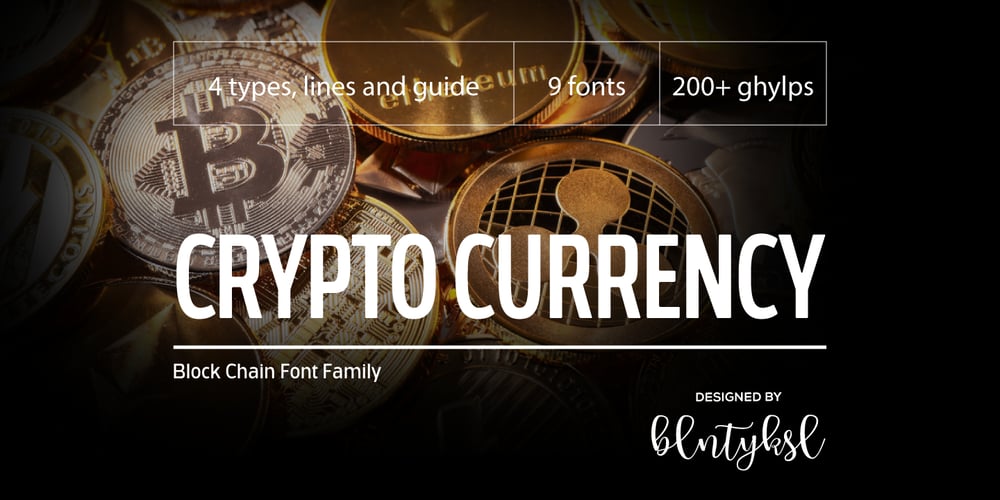
Cryptocurrency
Cryptocurrency font
Cryptocurrency Font Family was designed by Bülent Yüksel and published by Bülent Yüksel. Cryptocurrency contains 9 styles and family package options. “Crypto Currency – Block Chain” quickly entered our lives and its use is increasing day by day.Blockchain became more popular in web, TV and printed works. It is necessary to use their logos when defining “Crypto Currencies”. But it is not easy to access these logos fast. “Cryptocurrency Font Family” which I prepared for you, is a resource that you can reach without searching for too many logos.Cryptocurrency Font Family contains 200+ logos. These are the most popular “Block Chain” logos in recent years. The popularity rankings changed over time and you can contact me if you need new logos and changing logos. I can create the “Block Chain” logo you need or apply the changes. You can send your new logo and logo change requests to me at “buyuksel@hotmail.com”.Subsequent corrections and additions will be completely free. After the first purchase, there is no additional payment for updates.When using Cryptocurrency Font Family, “Cryptocurrency No.00 Guide Map” is absolutely free to download and use. This will help you a lot to define coins. “Guide Map” contains the letter and the Unicode numbers.— Contents —Ardor ARDR, Bitcoin BTC, Bitcoin Cash BCH, Bitcoin SV BSV, Bitcoin Gold BTG, Bitcoin Diamond BCD, Bitcoin Private BTCP, Bitcoin Plus ZBC, Bitcoin Z BTCZ, Etherium ETH, Etherium Classic ETC, Xrp Ripple XRP, Ripple, Teher USDT, Litecoin LTC, Litecoin Cash LCC, Eos EOS, Binance Coin BNC, Monero XMR, Cardano ADA, Steller XLM, Tron TRX, Tezos XTZ, Unus Sed Leo LEO, Chain Link LINK, Cosmos Atom ATOM, Huobi Token HT, Neo NEO, Hedge Trade HEDG, Crypto.com CRO, Iota MIOTA, Dash DASH, Maker MKR, Usd Coin USDC, Ontology ONT, Nem XEM, Ve Chain VET, Dogecoin DOGE, Basic Attention BAT, Z Cash ZEC, Paxos Standard PAX, Ftx Token FTT, Decred DCR, Qtum QTUM, Syntehetix Network SNX, True Usd TUSD, Raven Coin RVN, Ox ZRX, Okex OKB, Algorad ALGO, Holo HOT, Centrality CENZ, Augur REB, ZB Token ZB, Seele SEELE, Omisego OMG, Swipe SXP, Waves WAVES, Horizen ZEN, Kucoin Shares KCS, Theta THETA, Nano NANO, Nervos Network CKB, Byton BTM, Lisk LSK, Molekular Futures MOF, Digibayt DGB, Bittorent BTT, Icon ICX, V Systems VSYS, Iost IOST, Abbc Coin ABBC, Komodo KMD, Nexo NEXO, Siacom SC, Monacoin MONA, Luna LUNA, Enjin ENJ, DxChain Token DX, Hyper Cash HC, Verge XVG, Bytecoin BCN, Steem STEEM, Zilliqa ZIL, Maidsafe Coin MAID, Energi NRG, Bitshares BTS, Digixdo DGD, Rif Taoken RIF, Aeternity AE, Block Stamp BST, Zcoin XSC, Matic Network MATIC, Quart QNT, Silverway SLV, Kyber Network KNC, Iexec Rlc RLC, Electironeum ETN, Ren REN, Status SNT, Status Euro EURS, Single Colleteral SAI, Nash Exchange NEX, Grin GRIN, Decentraland Mana MANA, Stratis STRAT, Solve SOLVE, Kick Token KICK, Aelf ELF, Golem GLT, Pumdi X NPXS, Enigma ENG, Metaversa Etp ETP, Digitex Futures DGTX, Elastos ELA, Gxchain GXC, Chiliz CHZ, Ripio Credit RCN, Aion AION, Fetch Ai FET, Loopring LRC, Dragon Coin DRG, Wayki Chain WICC, Thunder Token TT, Iotex IOTX, Nebulas NAS, Hedera Hashgraph HBAR, Bread BRD, Hyperion HYN, Ignis IGNIS, True Chain TRUE, Wax WAX, Tierion TNT, Wanchain WAN, Reddcoin RDD, Wink WIN, Gatechain Token GT, Diamond Platform DPT, Nuls NULS, Yap Stone YAP, Vertcoin VTC, Project Pai PAI, Denta Coin DCN, Ark ARK, Fun Fair FUN, Loom Network XMX, Edu Care EKT, Aragon ANT, Factom FCT, Populous PPT, Revain R, Harmony ONE, Qash QASH, Groestl Coin GRS, Civic CVC, Fantom FTM, Swiss Borg CHSB, Santiment Network SAN, Moeda Loyalty MDA, GoChain GO, Dent DENT, Edc Blockchain EDC, Storj STORJ, Divi DIVI, Pivx PIVX, Bancor BNT, Metal MTL, Loki LOKI, Wirex Token WXT, Bitkan KAN, Gnosis GNO, Network NEW, Thorchain RUNE, Odem ODE, Bibox Token BIX, Bosagora BOA, Oceon Protocol OCEON, Celer Network CELR, Chimpion BNANA, Mixin XIN, Veritasium VERI, Mine Bee MB, Bankera BNK, Bitcoin2 BTC2, Casino Coin CSC, Bitforex Token BF, Dynamic Trading DTR, Poseidon Network QQQ, Obyte GBYTE, Cloak Coin CLOAK